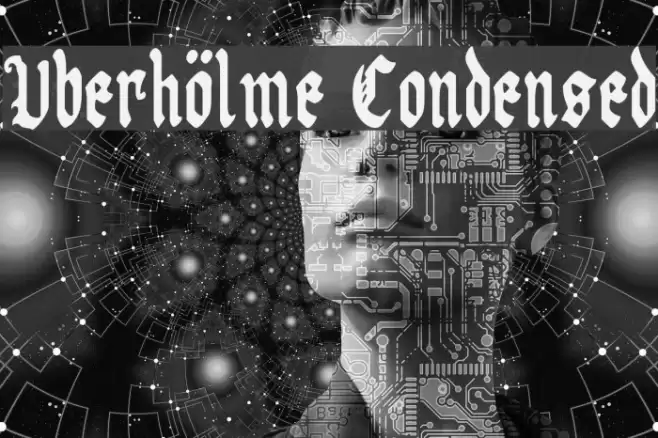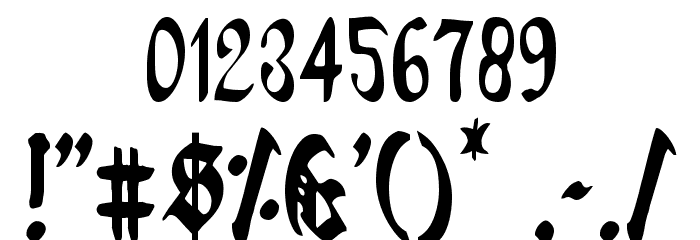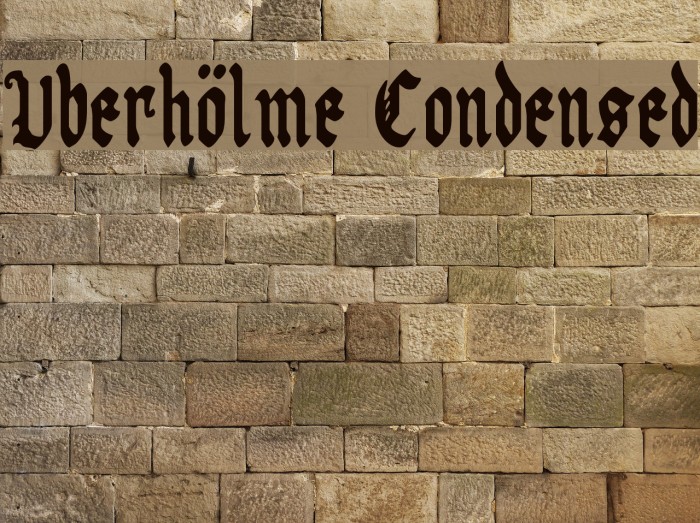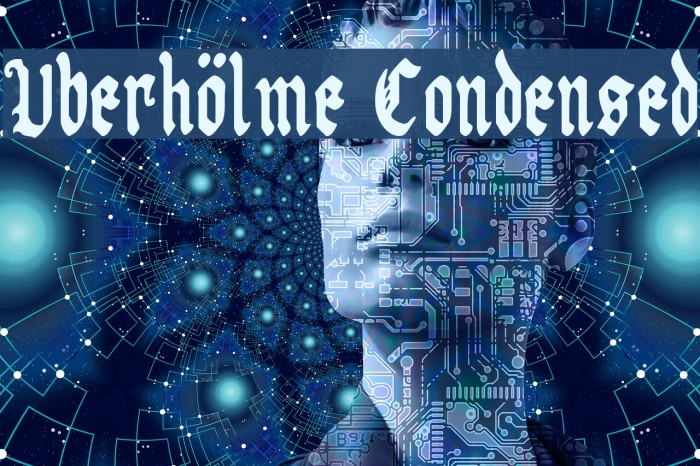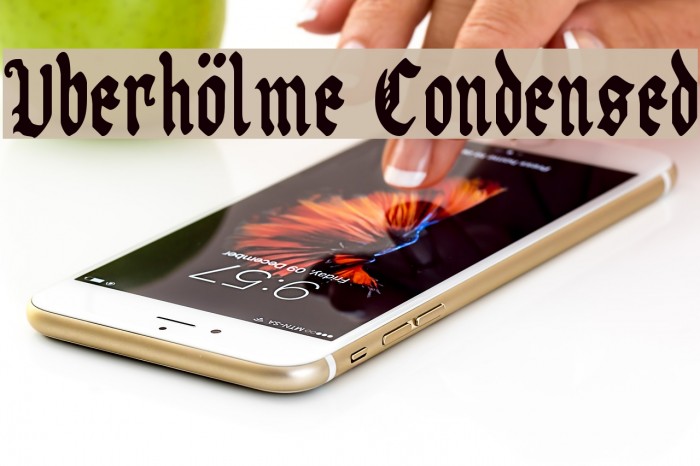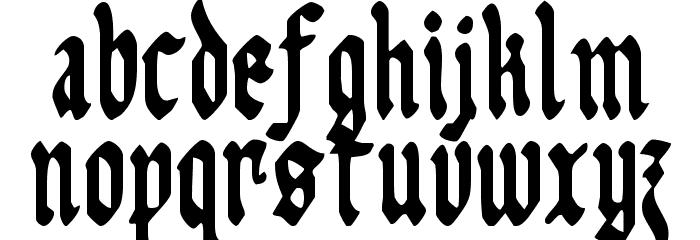
Uberhölme Condensed Font
Uberhölme Condensed Description
This font features a bold and dramatic style reminiscent of traditional blackletter typefaces. The characters are intricately designed with sharp angles and ornate details, giving it a historic and authoritative appearance. The uppercase letters are particularly striking, with their elaborate flourishes and strong vertical emphasis. The lowercase letters maintain the same level of detail, ensuring consistency throughout the typeface. The numbers and special characters are equally well-crafted, making this font versatile for various applications. Its condensed nature allows for efficient use of space while maintaining legibility.
A bold, condensed blackletter font with intricate details and a historic feel from Gothic fonts.
- Proposed Projects: Ideal for projects requiring a medieval or gothic aesthetic, such as book covers, posters, or branding for historical events.
- Character Spacing: Tight
- Overall Style: Vintage